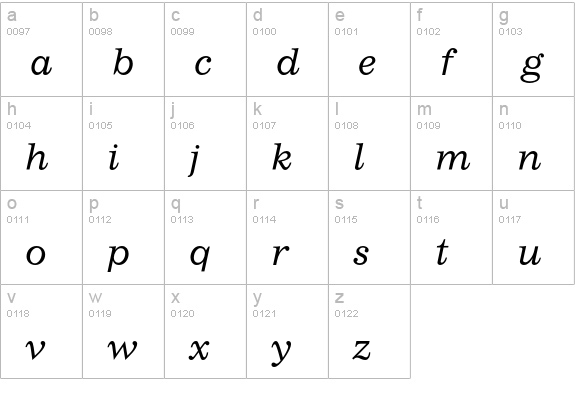
ImpressumEF-LightItalic Font Details
ImpressumEF-LightItalic is a stunning and elegant font that exudes a sense of sophistication and grace. It is the perfect choice for those looking to add a touch of elegance to their designs. With its delicate and refined curves, this font will effortlessly enhance any project, whether it's a wedding invitation, a logo, or a branding material. What makes ImpressumEF-LightItalic even more appealing is that it is available for free. Yes, you read that right! This font is freely available to download at FontsMarket.com. We believe that creativity should never be limited by budget constraints, which is why we have made this exquisite font accessible to everyone. Now you can create beautiful designs without worrying about the cost. ImpressumEF-LightItalic is not just visually stunning; it is also highly versatile. Its light and italic style lend a sense of elegance and sophistication, while its clear and legible letterforms ensure readability even in small sizes. This font is perfect for headlines, subheadings, or any other text that needs to make a bold statement. Whether you're a professional designer or someone who simply appreciates beautiful typography, ImpressumEF-LightItalic is a must-have addition to your font collection. Its timeless elegance and free availability make it an irresistible choice for any project. So why wait? Download ImpressumEF-LightItalic now at FontsMarket.com and let your creativity soar.